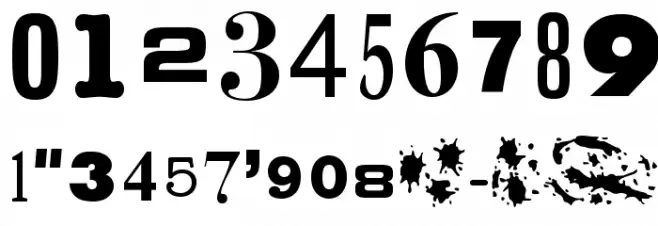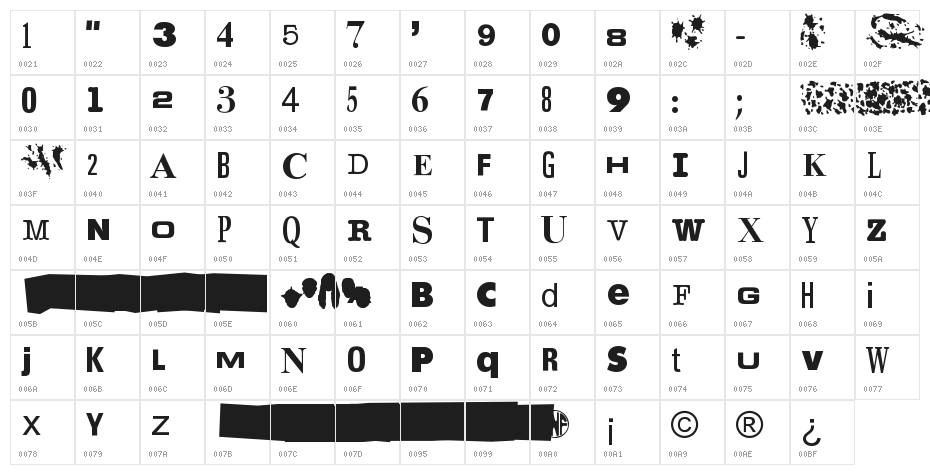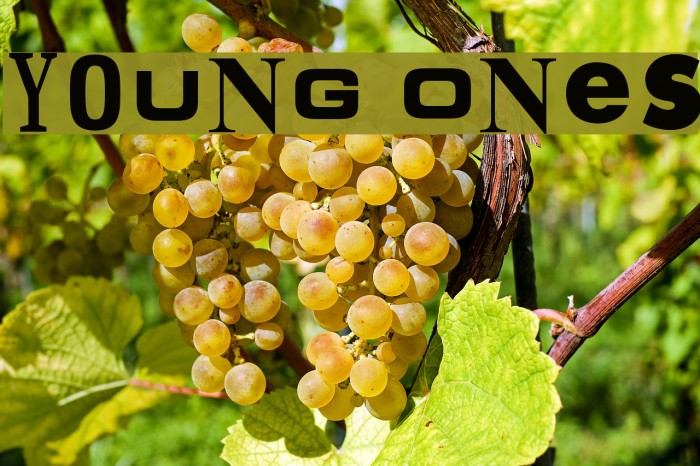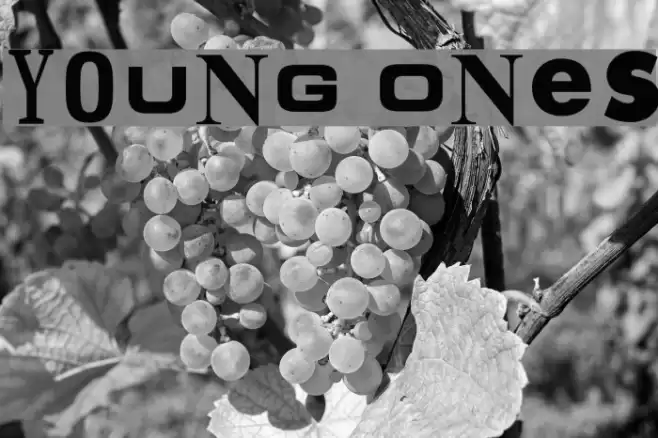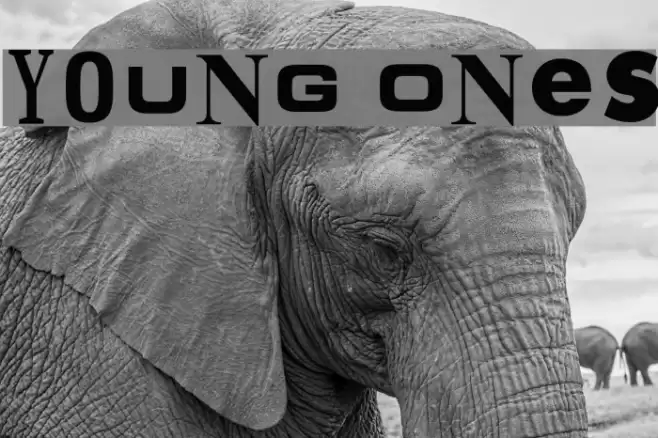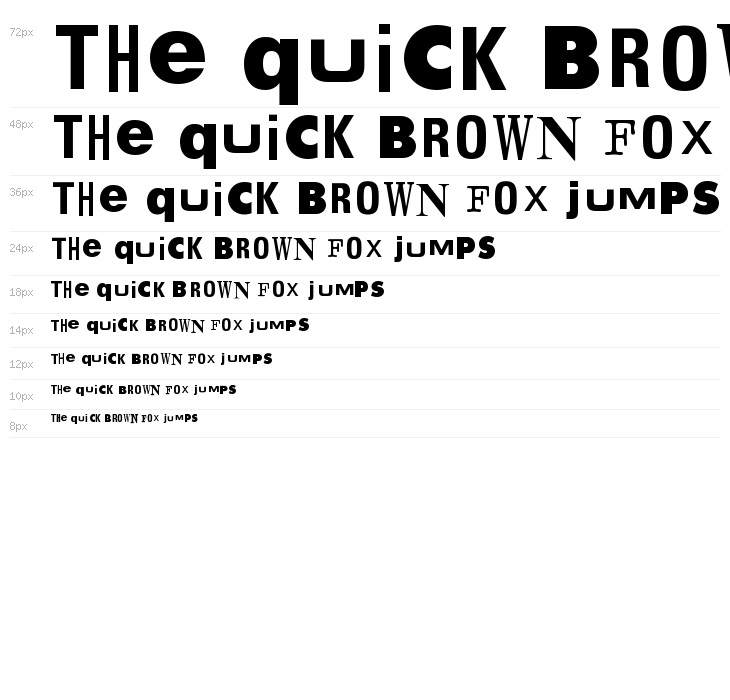
Young Ones Font
Young Ones Description
This font features a playful and eclectic mix of styles, with each character exhibiting unique design elements. The uppercase letters vary significantly, with some characters displaying bold, thick strokes while others are more slender and elongated. The lowercase letters continue this theme of diversity, offering a range of weights and styles that create a dynamic visual experience. The numbers are bold and prominent, ensuring readability. Special characters are creatively designed, adding a whimsical touch to the overall aesthetic. This font is ideal for projects that require a fun and unconventional look.
| Overall Style | Playful, Eclectic |
| Proposed Projects | Ideal for children's books, creative posters, playful branding, and artistic projects. |